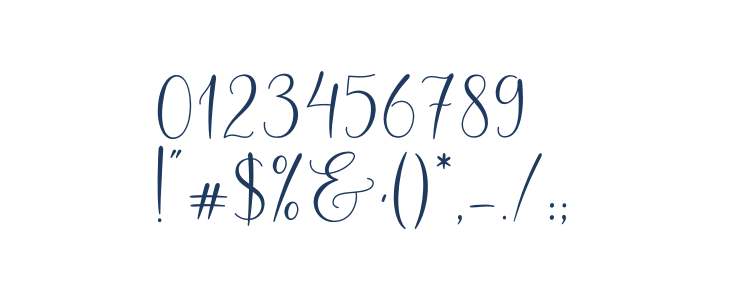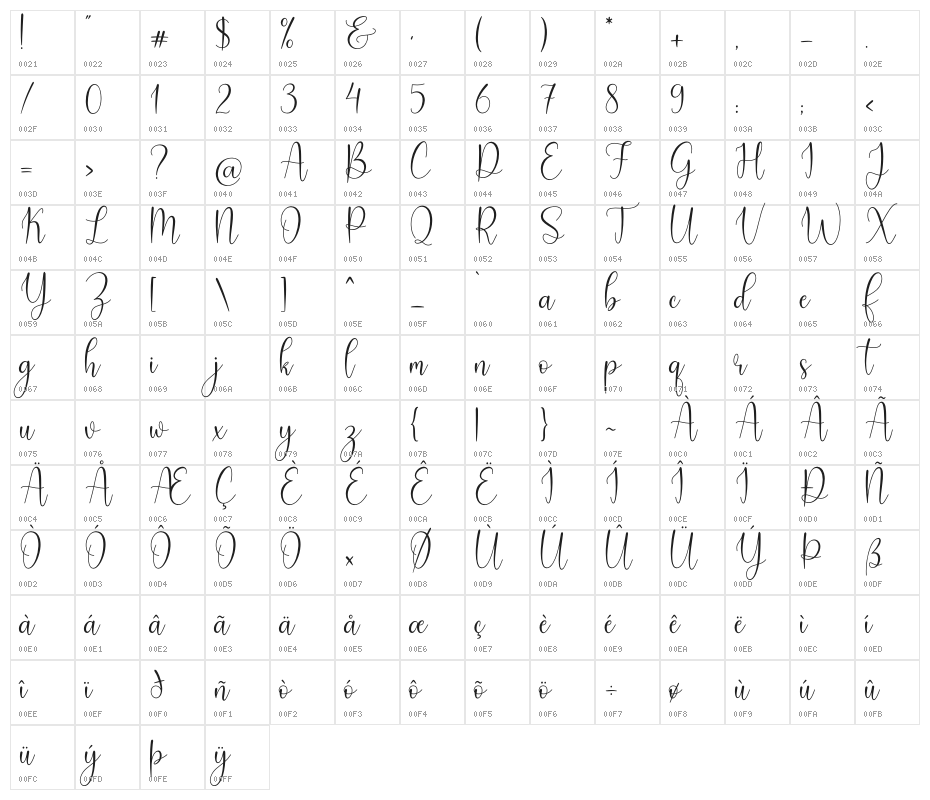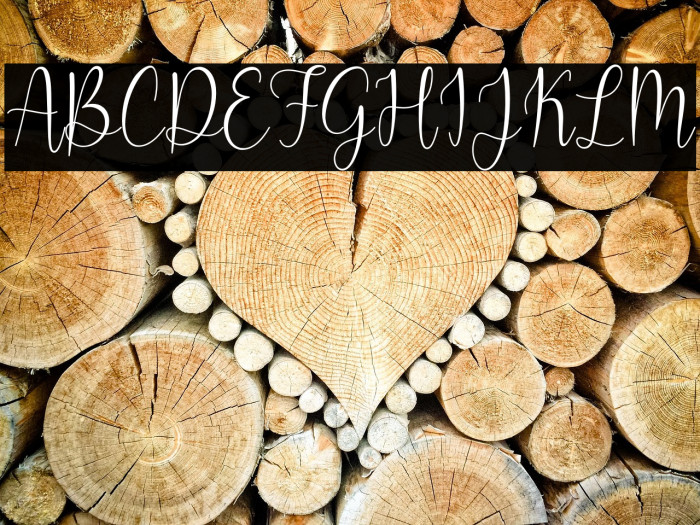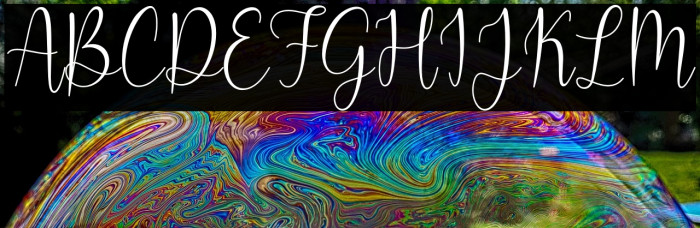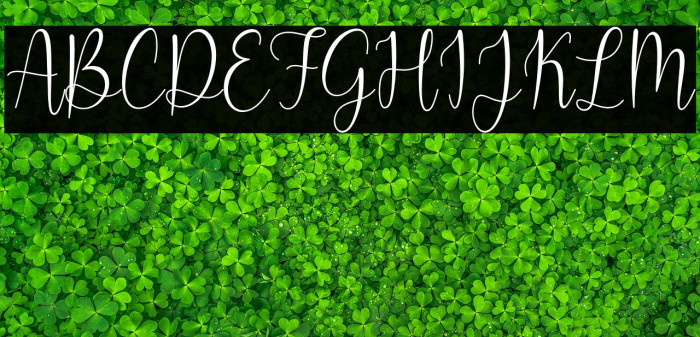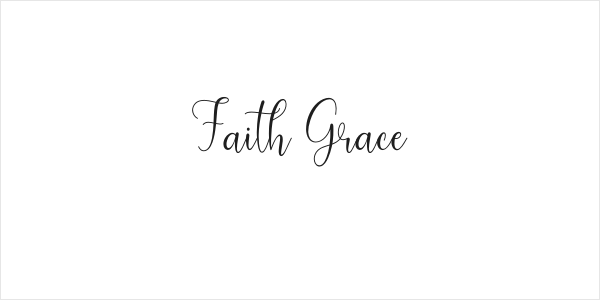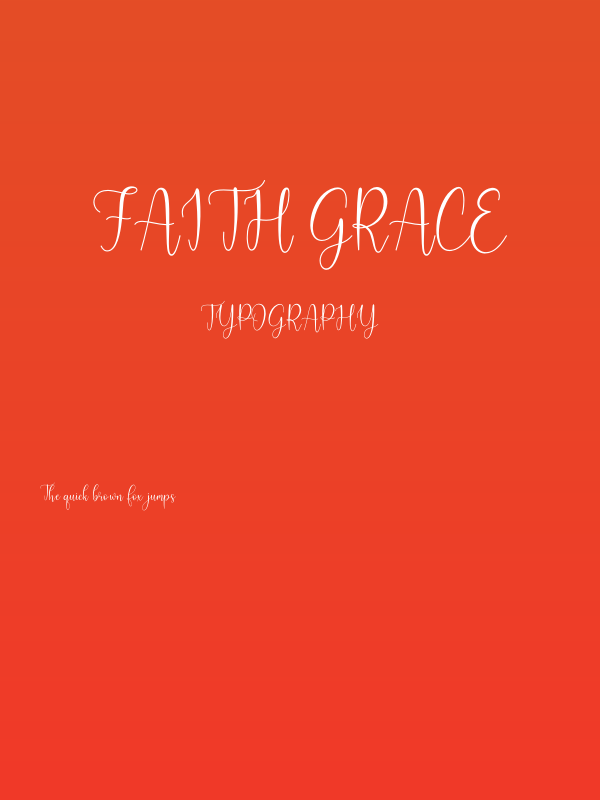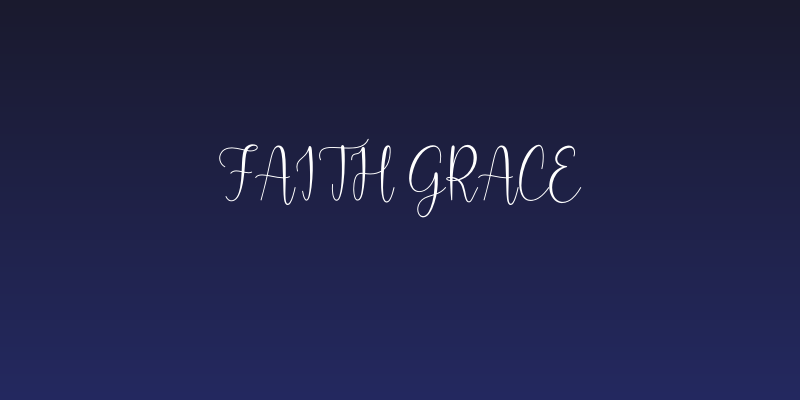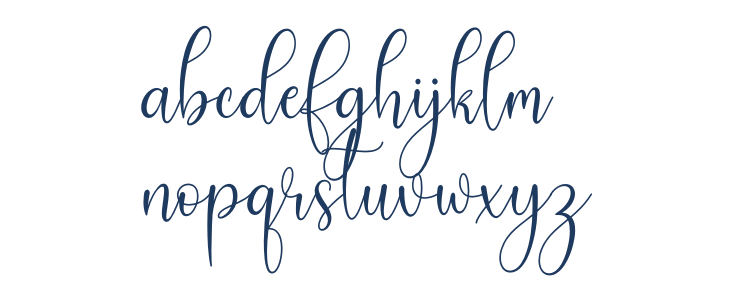
Faith Grace Font
Faith Grace Description
This font features an elegant and flowing script style, characterized by its smooth, cursive strokes and graceful loops. The uppercase letters are tall and slender, with a slight slant that adds a touch of sophistication. The lowercase letters maintain a consistent flow, with delicate connections between each character, creating a harmonious and fluid appearance. The numerals are clear and easy to read, complementing the overall aesthetic. Special characters are thoughtfully designed to match the script's elegance, making this font suitable for a variety of creative applications.